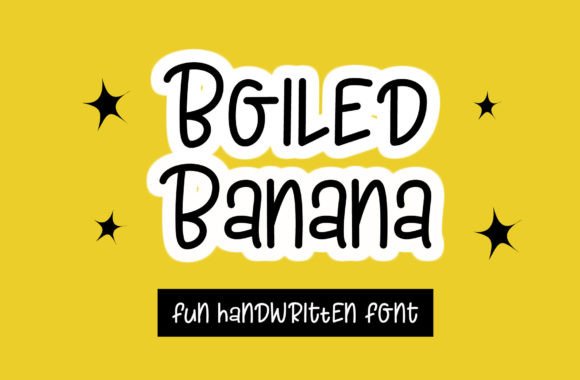
Boiled Banana Font
Unleash the magic of Boiled Banana, the captivating handwritten font that breathes life into your designs! Step into a world of captivating beauty, where words dance with grace and elegance, leaving an unforgettable impression on your audience.
Imagine the allure of your beauty brand reaching new heights with Boiled Banana, a font so enchanting, it's like a love letter written in the stars. Its playful spirit and undeniable charm will resonate with customers, drawing them into your brand's story like never before.
Boiled Banana is not just a font; it's an experience. Its whimsical strokes and flowing curves create a visual symphony that captures the essence of femininity and sophistication. Let your words take center stage, adorned with the beauty of Boiled Banana, as they effortlessly convey your brand's message with a touch of whimsy and allure.
With Boiled Banana at your disposal, you'll have the power to transform ordinary designs into extraordinary masterpieces. Its versatility knows no bounds, making it the perfect choice for logos, branding, social media graphics, and any project where a touch of magic is desired. Embrace the allure of Boiled Banana and watch as your designs blossom into captivating works of art.
But it doesn't stop there. Boiled Banana possesses a unique charm that captivates audiences with its playful and sophisticated aura. The seamless blend of uppercase and lowercase letters creates a harmonious dance of characters, adding depth and dimension to your creations. Unleash your creativity and let Boiled Banana guide you on a journey of visual storytelling, transforming your designs into captivating experiences.